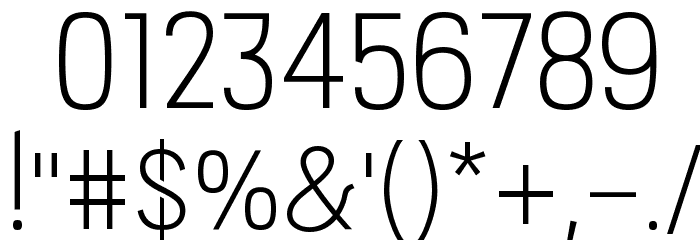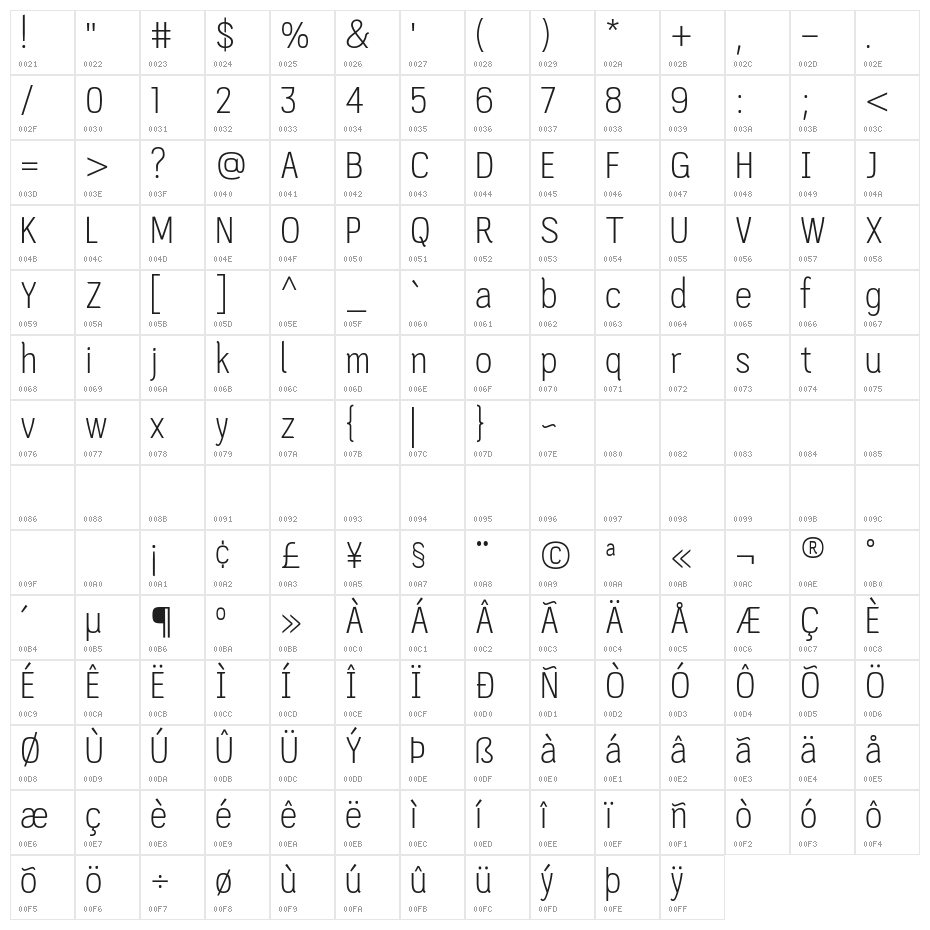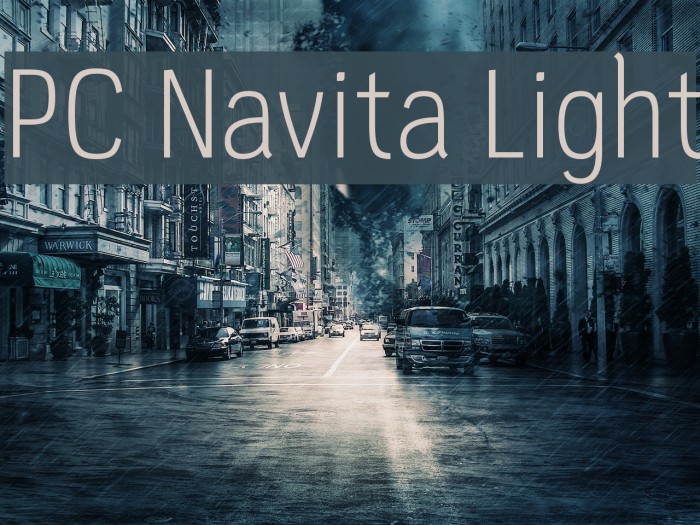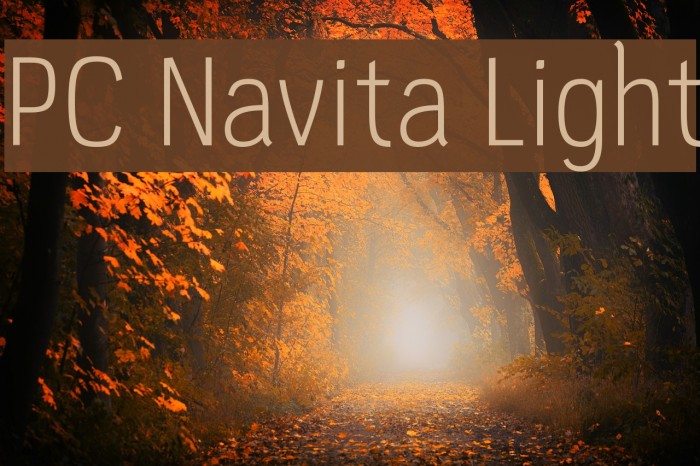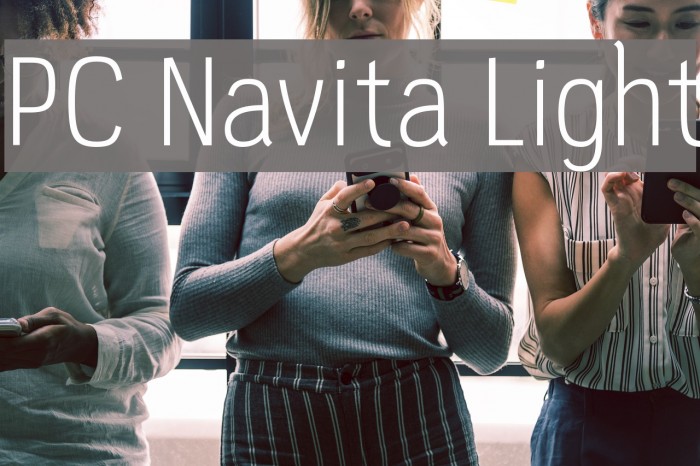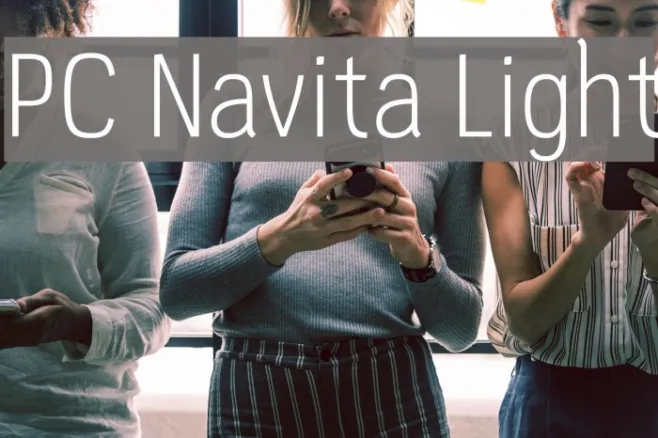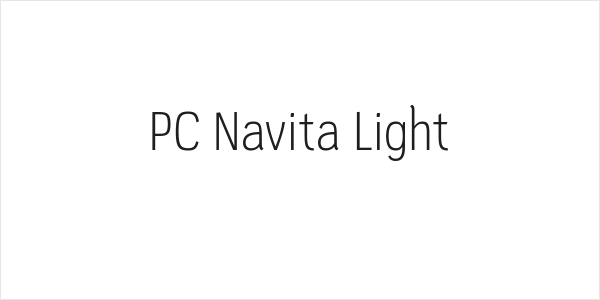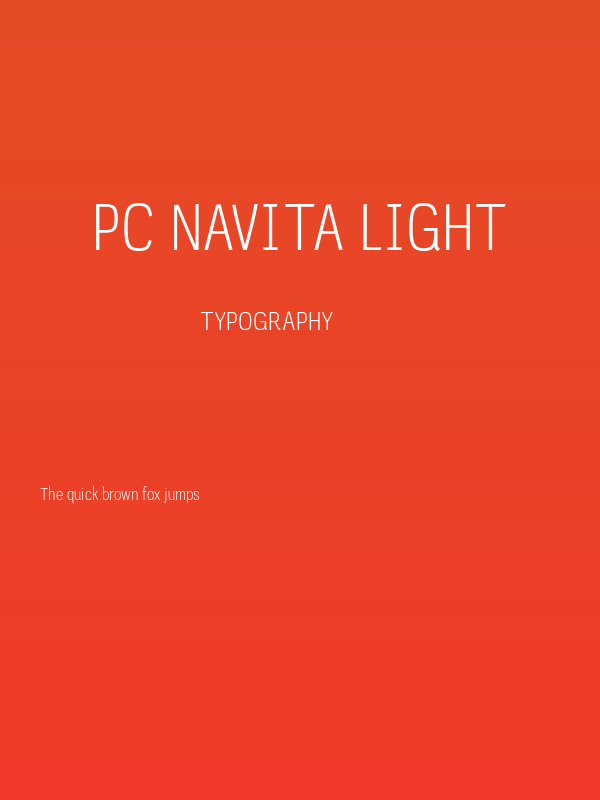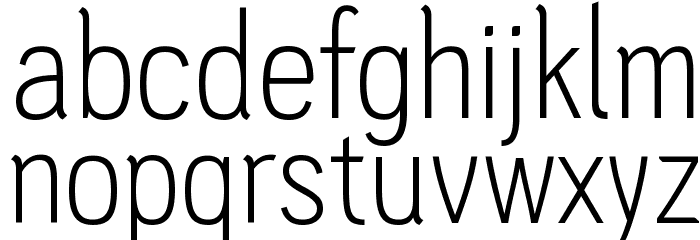
PC Navita Light Font
PC Navita Light Description
This font features a clean and modern sans-serif design with a light weight, offering a sleek and professional appearance. The characters are tall and narrow, with a consistent stroke width that provides a uniform look. The uppercase letters are slightly taller than the lowercase, maintaining a balanced proportion. The numerals are clear and distinct, making them easily readable. Special characters are well-defined, adding to the font's versatility. The overall design is minimalistic, making it suitable for a wide range of applications where clarity and simplicity are desired.
| Proposed Projects | Ideal for use in digital interfaces, corporate branding, editorial design, and minimalist posters. |